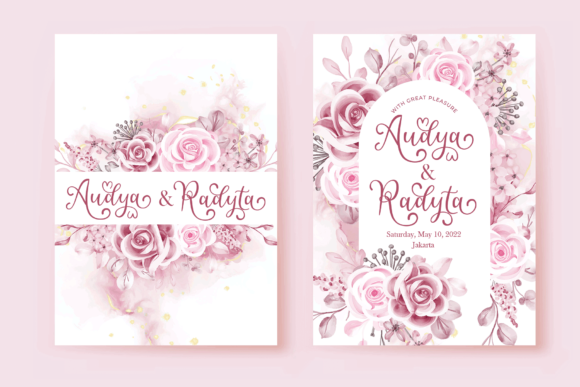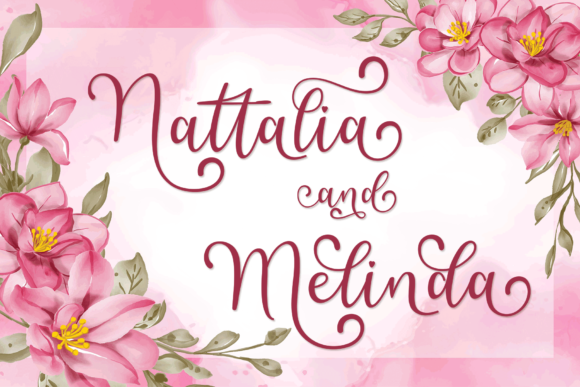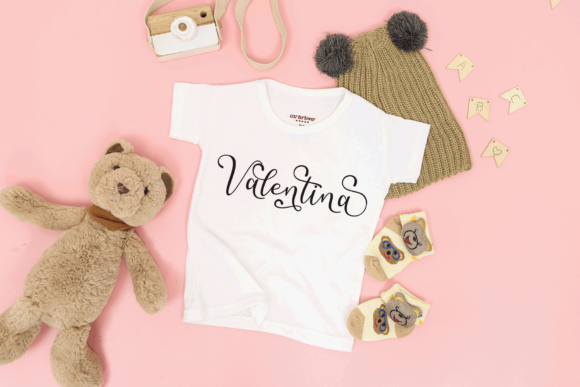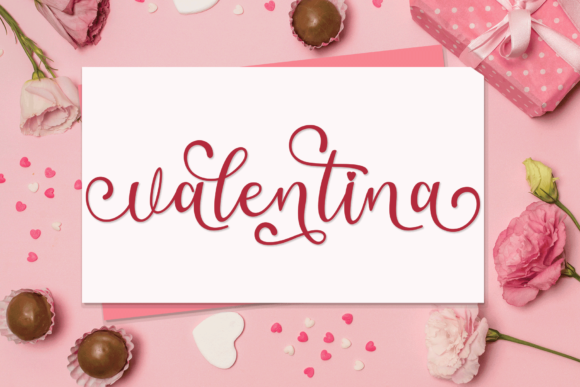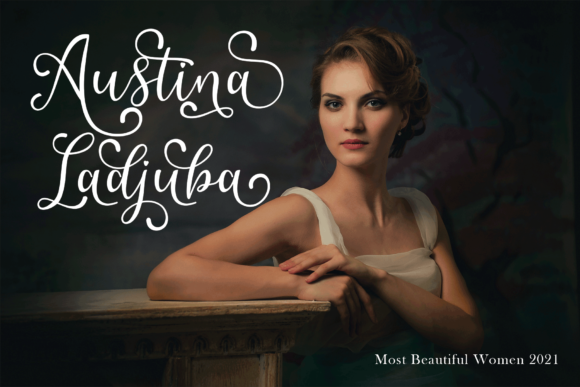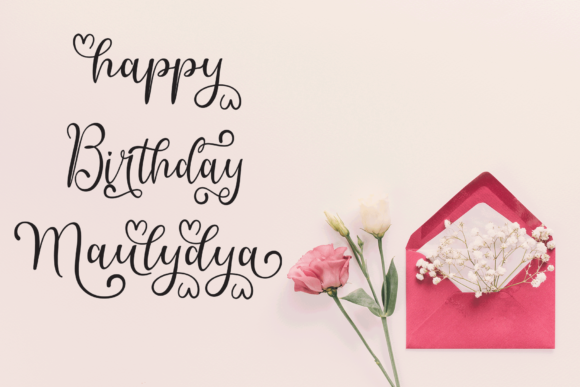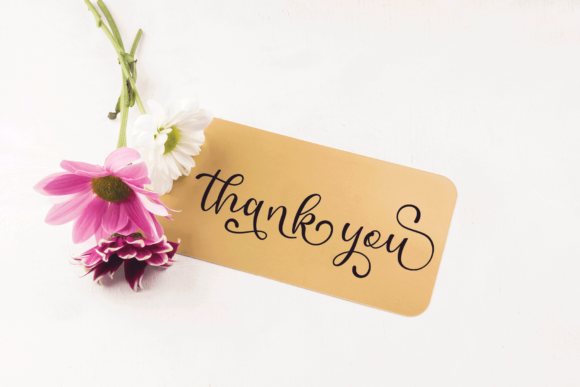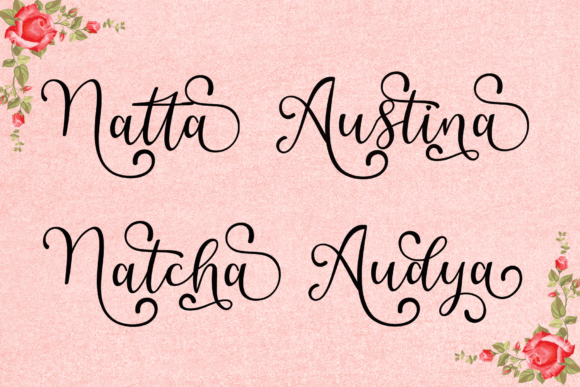
Melissa Font
About Melissa Font
Melissa is a beautiful and flexible handwritten font. It is suitable for various design needs such as business cards, wedding invitations, banner ads and various other creations.